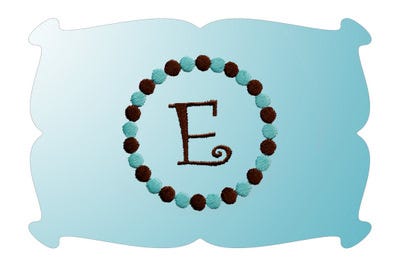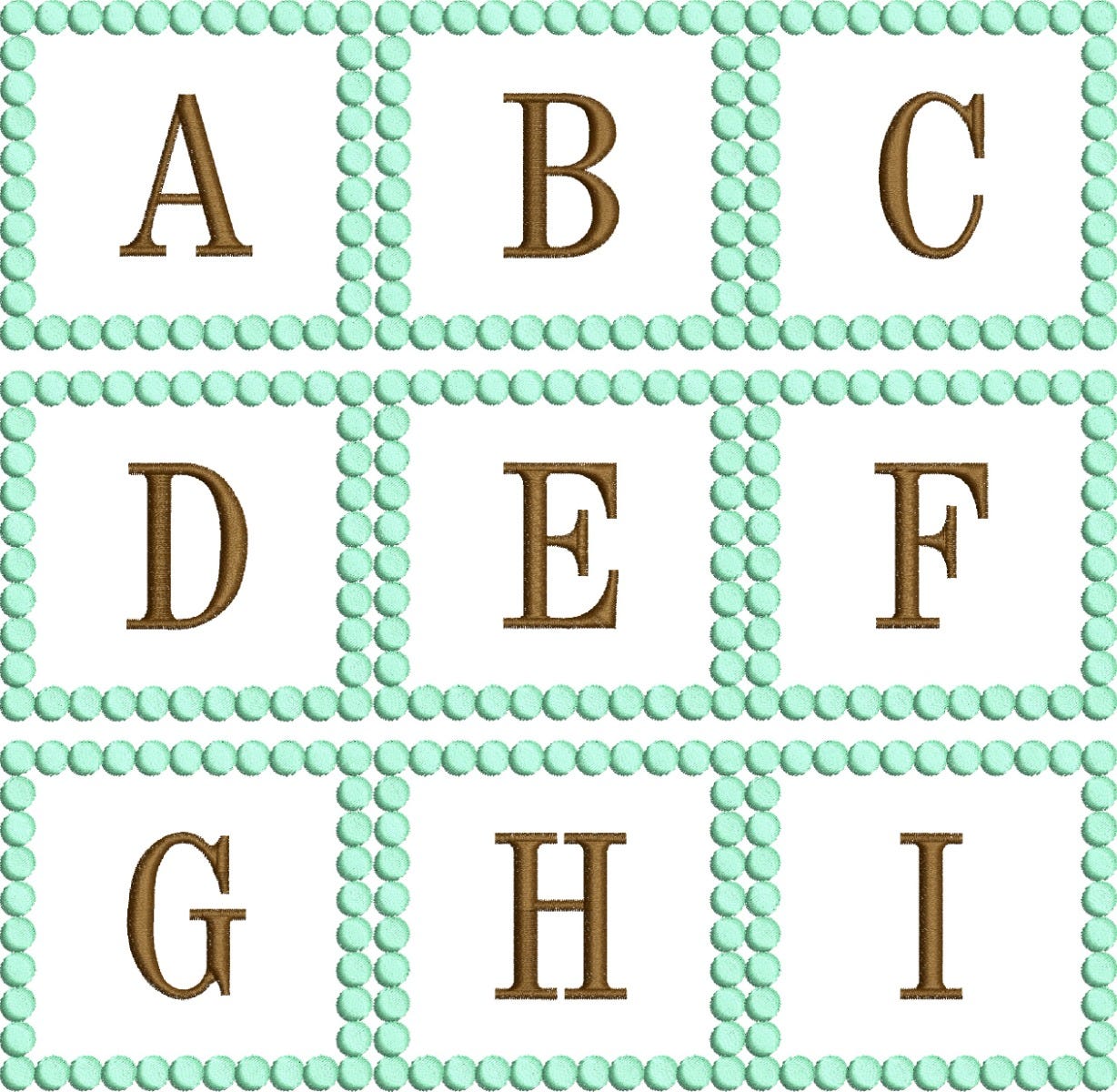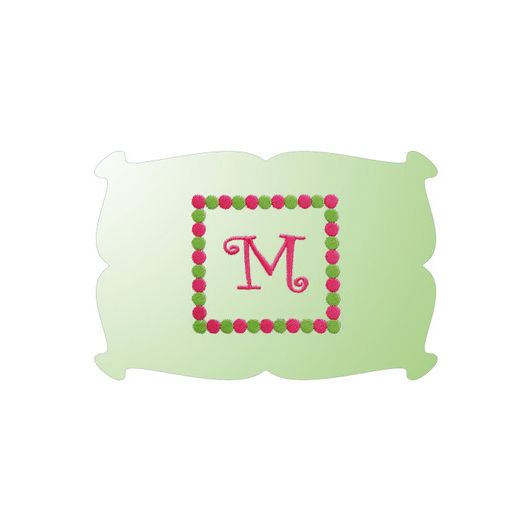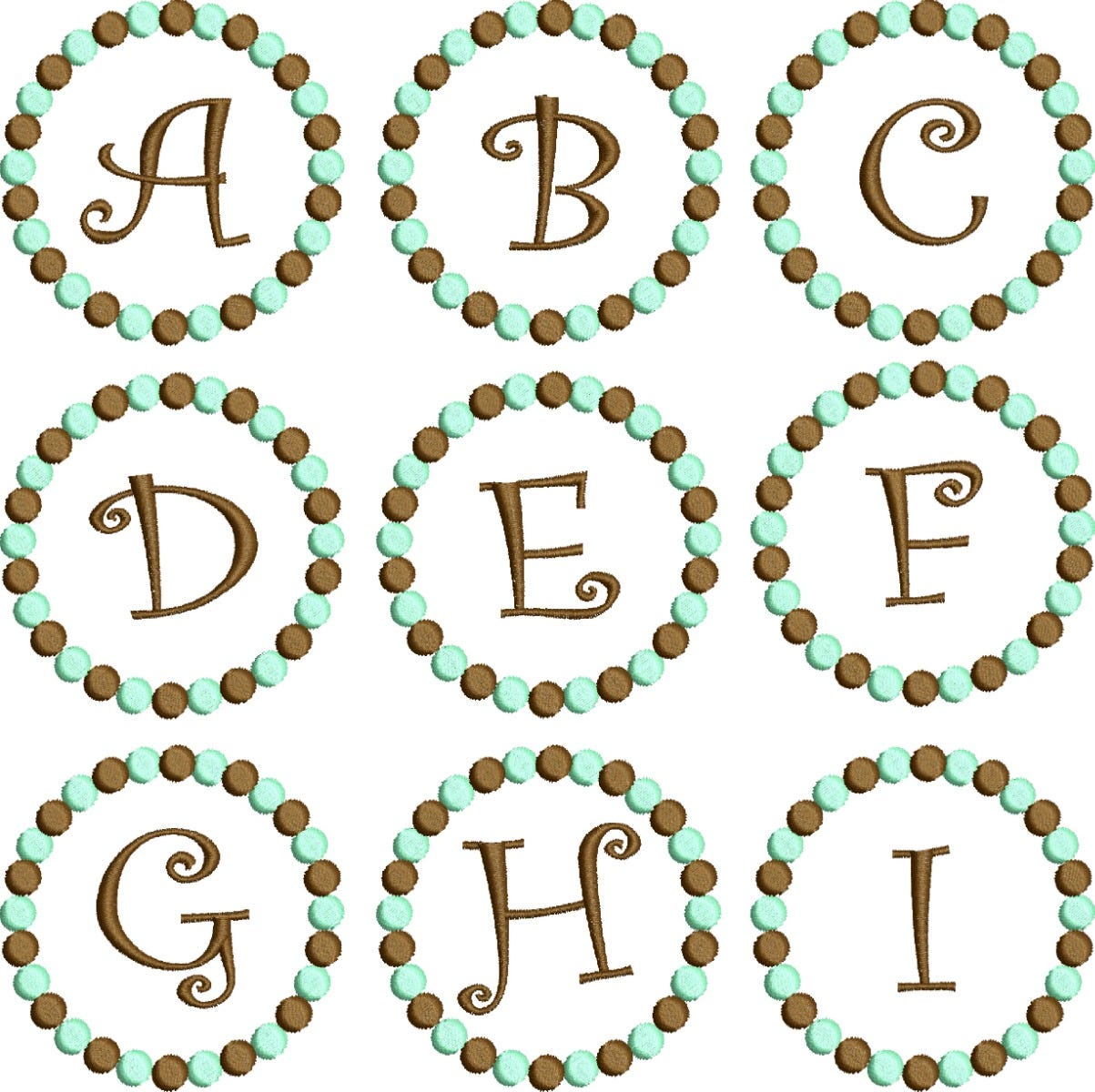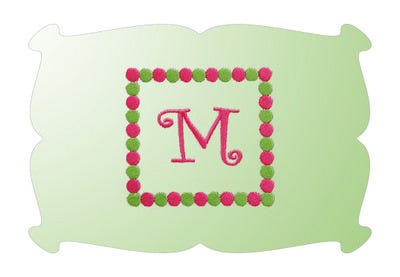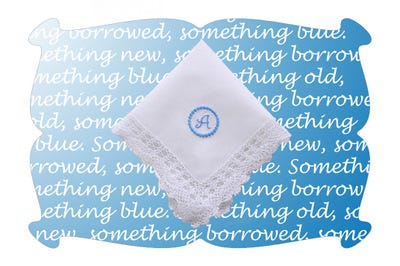
French Dots Monogrammed Font Set
French Dots Monogrammed Font Set is perfect for Handkerchiefs, napkins, towels, Onesies and more! Comes in both squares and cricles, also comes in one color dot and two color dot versions as shown--see detailed information below.
Sizes included: 1.5 and 2.5 inches.
Design info:
This is a huge set of designs and includes:
Girl Font:
1.5 and 2.5 inch circle frames. One and two colors of dots.
1.5 and 2.5 inch square frames. One and two colors of dots.
Boy Font (but we think the girls will like this font too):
1.5 and 2.5 inch circle frames. One and two colors of dots.
1.5 and 2.5 inch square frames. One and two colors of dots.